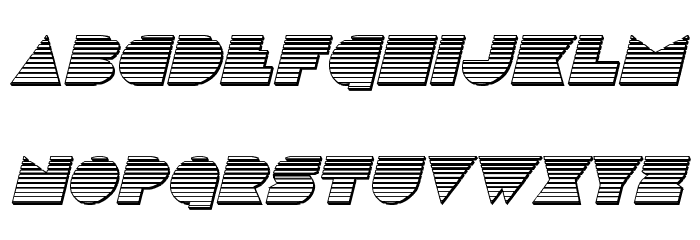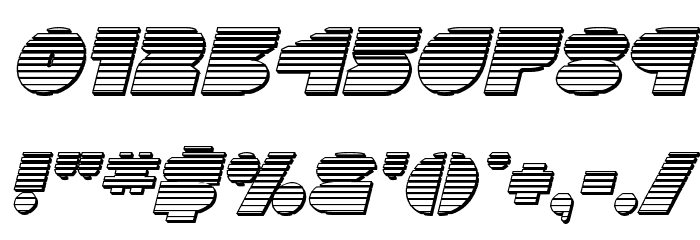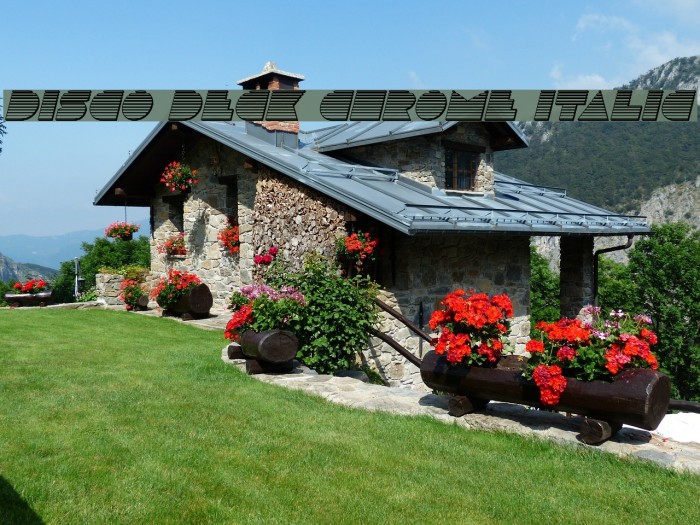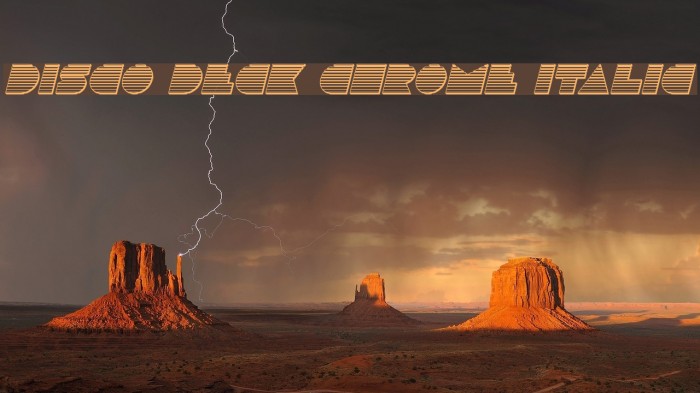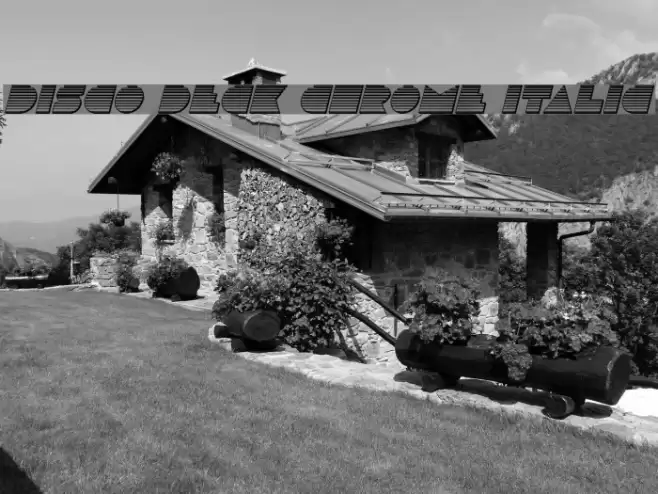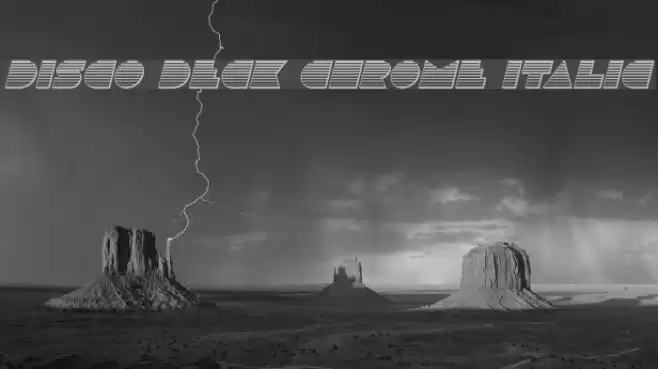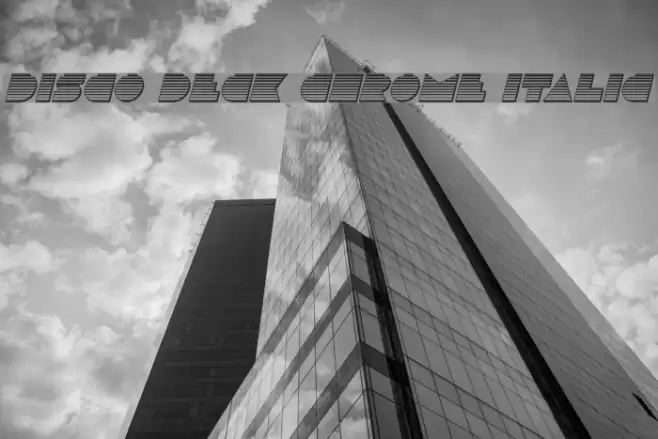
Disco Deck Chrome Italic Font
This font features a bold, dynamic design with a distinct striped pattern running horizontally across each character. The letters are italicized, adding a sense of motion and energy. The geometric shapes are consistent, with sharp angles and clean lines, creating a futuristic and modern aesthetic. The uppercase and lowercase letters maintain a uniform style, while the numbers and special characters complement the overall design. The font's unique appearance makes it stand out, ideal for projects that require a bold statement.
A bold, italicized font with a striped, futuristic design.
- Proposed Projects: Ideal for music album covers, event posters, or branding that requires a modern, energetic look.